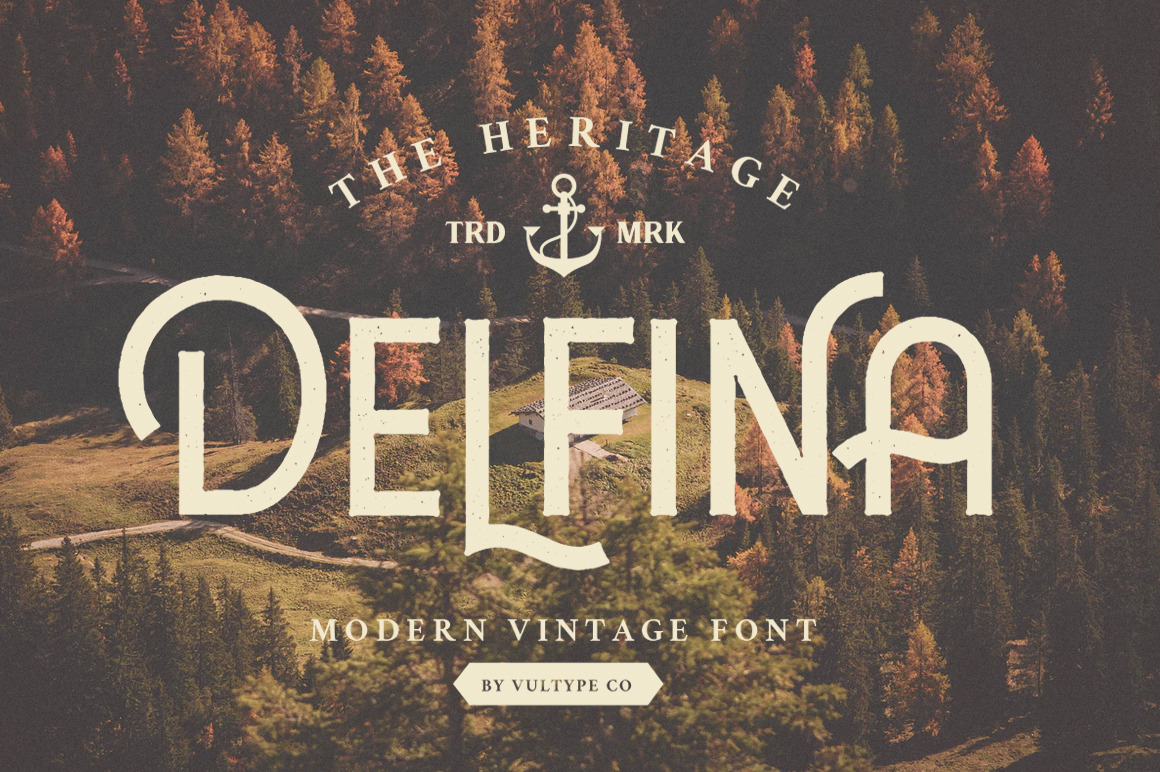
DELFINA - Vintage Font
Introducing Delfina Vintage Sans Serif Font
inspired by the vintage old american which has two styles, Clean and Rough also come with a lot alternative character
Made carefully to create the perfect texture and suitable for each of your projects also great for Logotype, Branding Design, Logo Design, Digital Lettering Arts, T-Shirt/Apparel, Poster, Magazine, Signs, Advertising Design, and any vintage design needs.